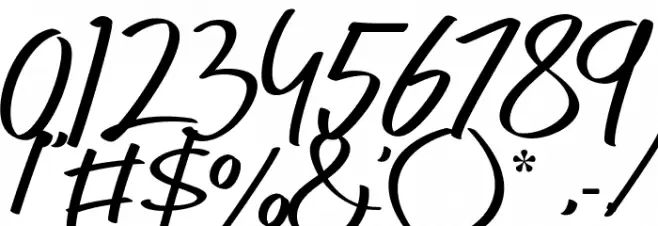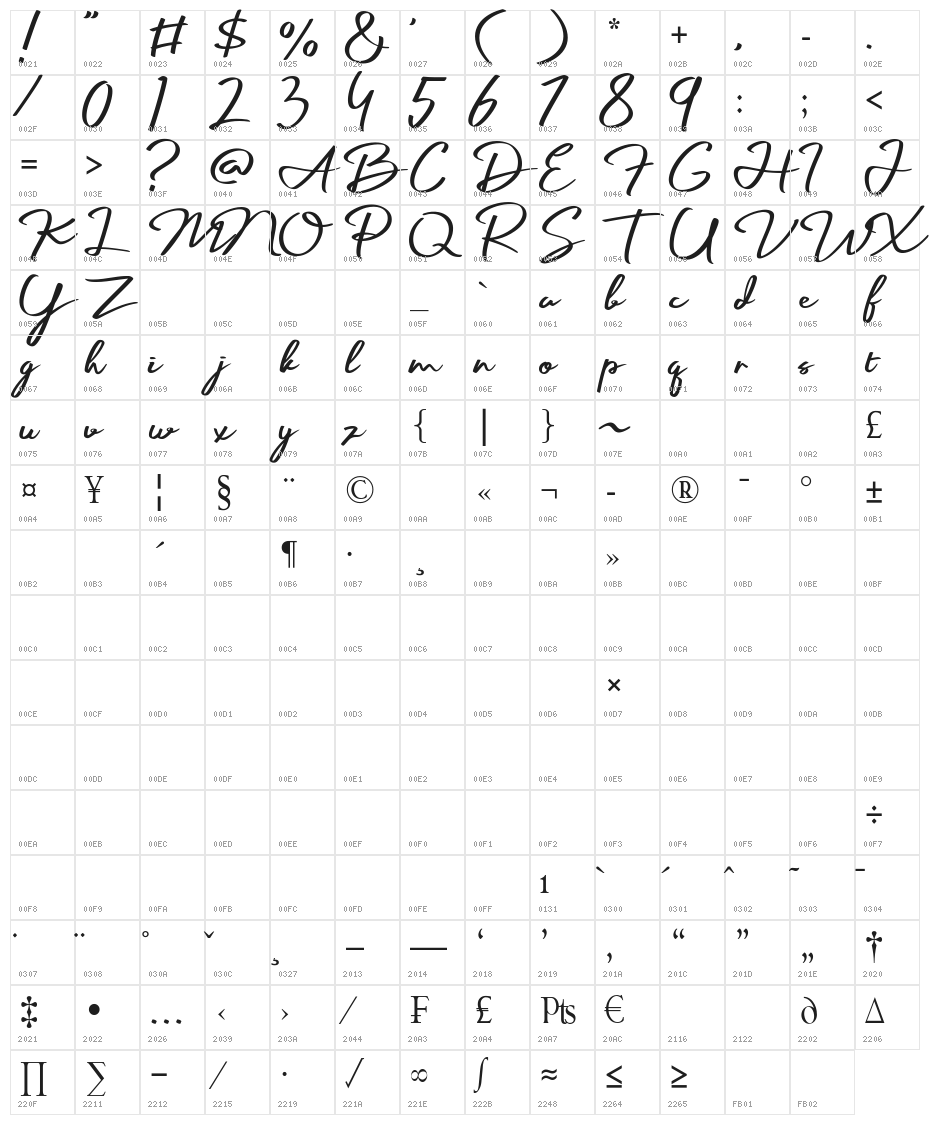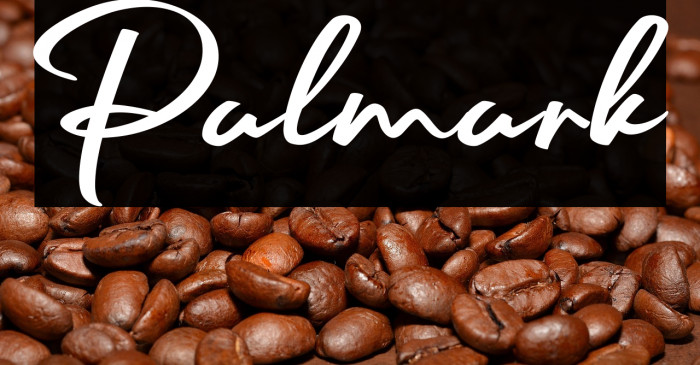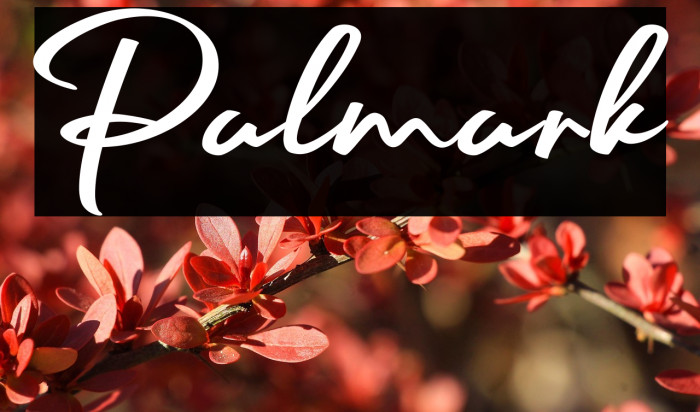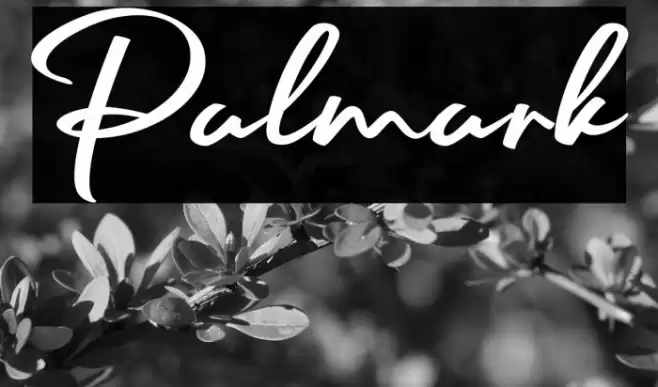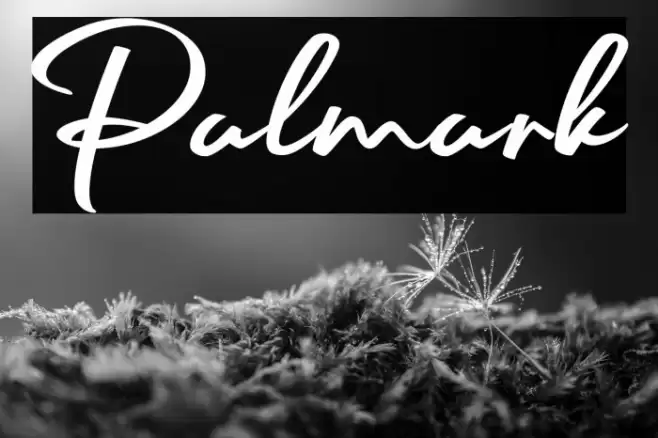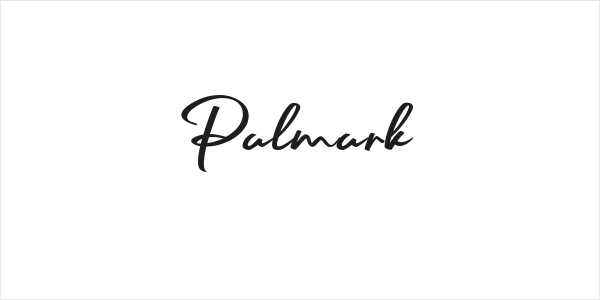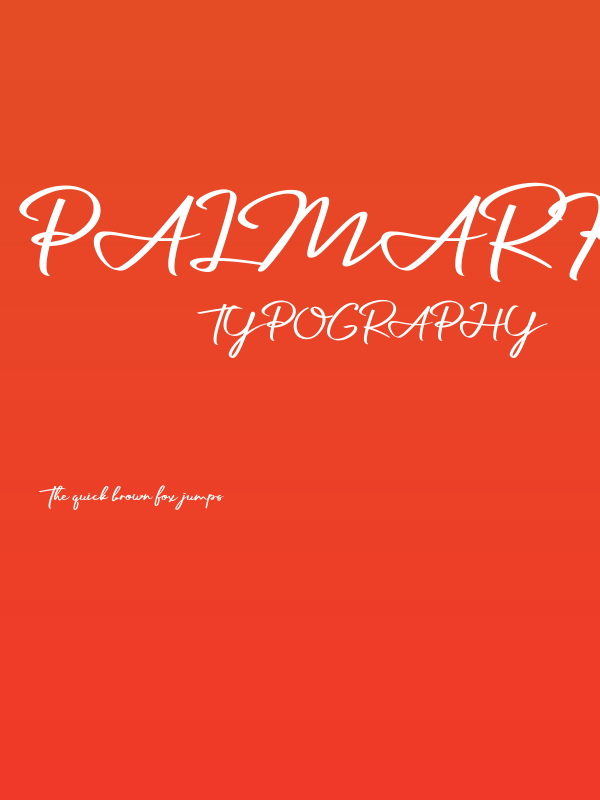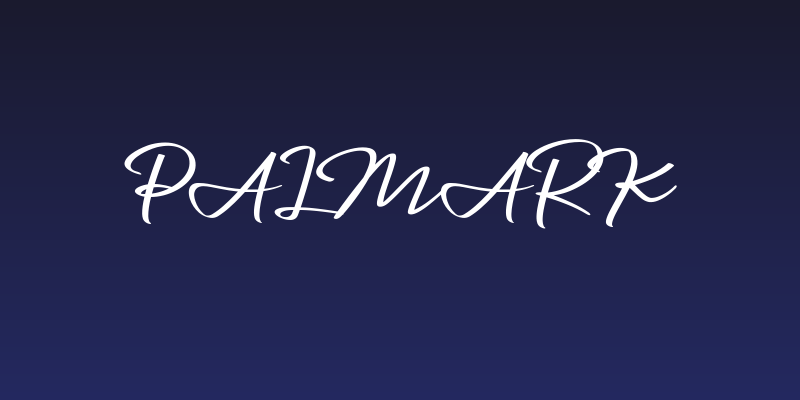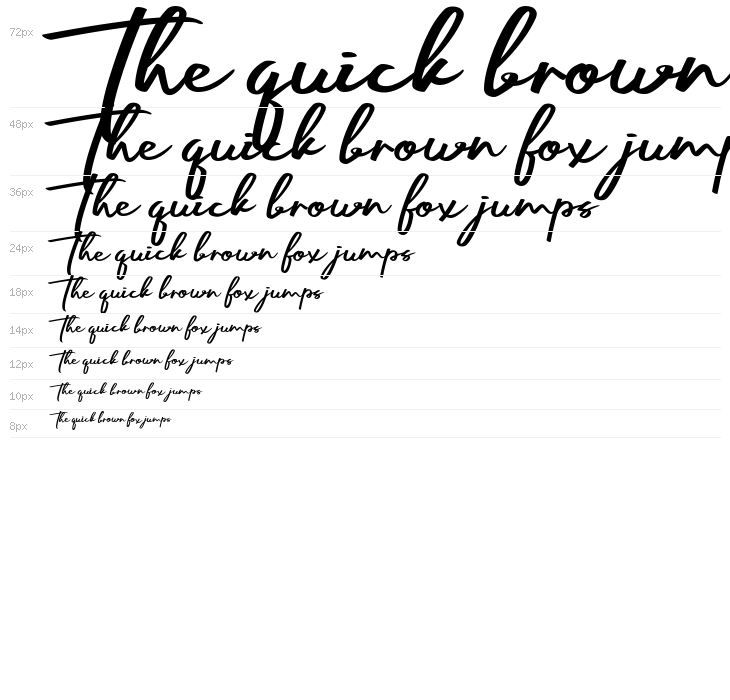
Palmark Font
Palmark Description
This font features a flowing, cursive style that exudes elegance and sophistication. The uppercase letters are gracefully connected, while the lowercase letters maintain a consistent, fluid motion. The numerals are bold and dynamic, complementing the overall script style. Special characters are seamlessly integrated, maintaining the font's cohesive appearance. The strokes are smooth and rounded, giving the font a friendly yet refined look. This font is ideal for projects that require a personal touch, such as invitations, greeting cards, or branding materials.
| Proposed Projects | Ideal for wedding invitations, personal branding, greeting cards, and elegant signage. |